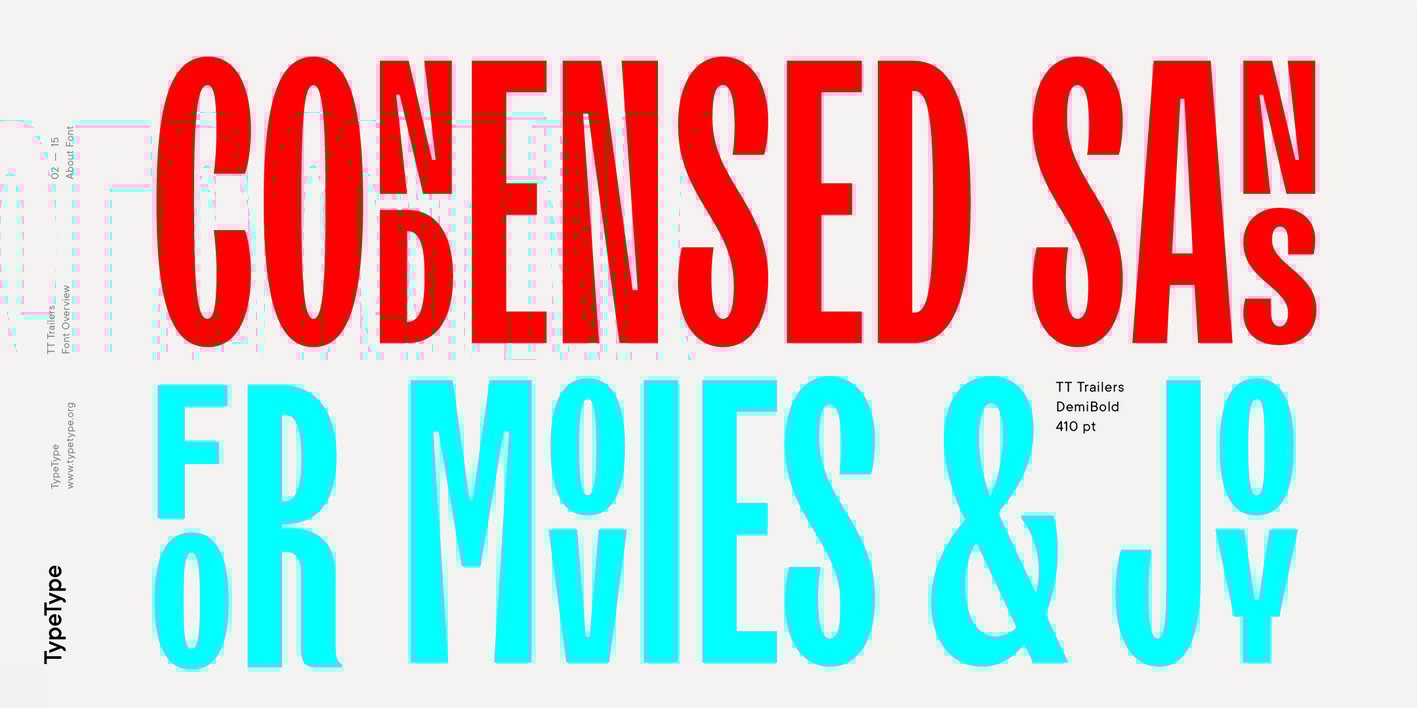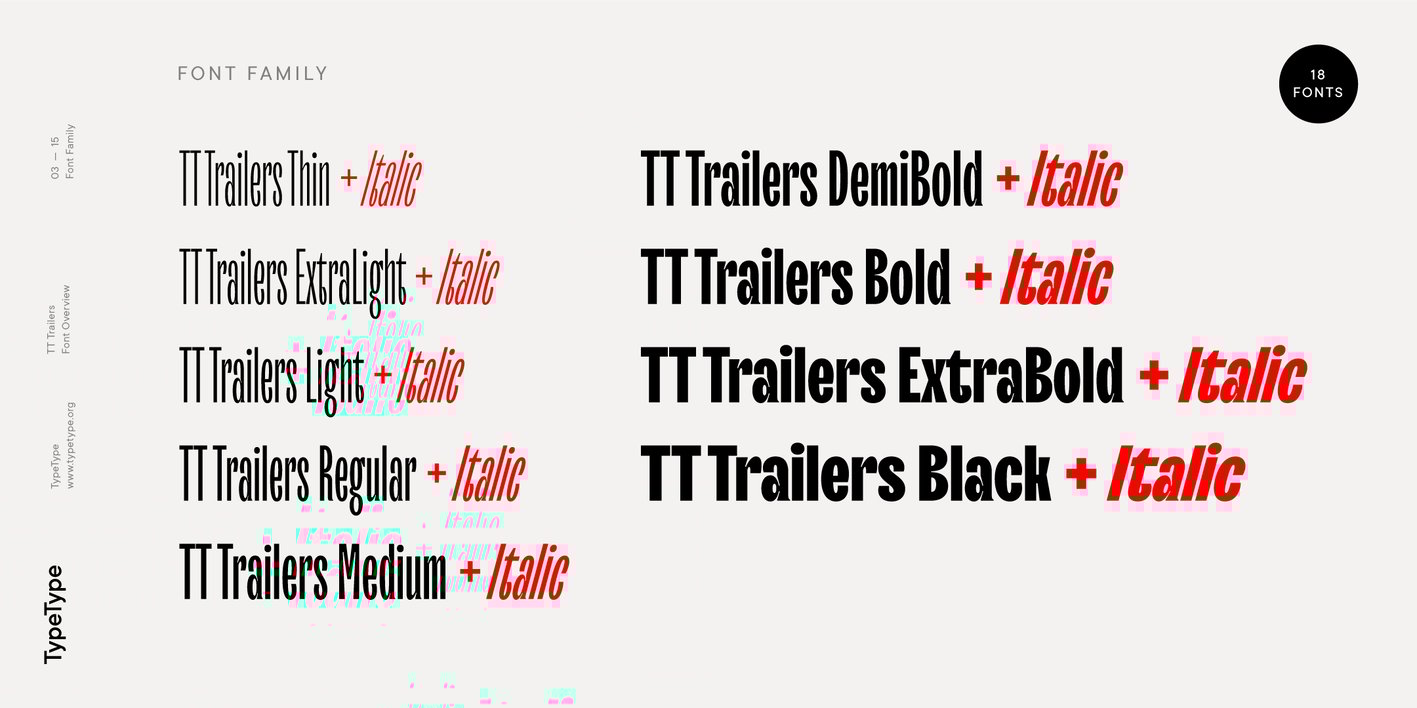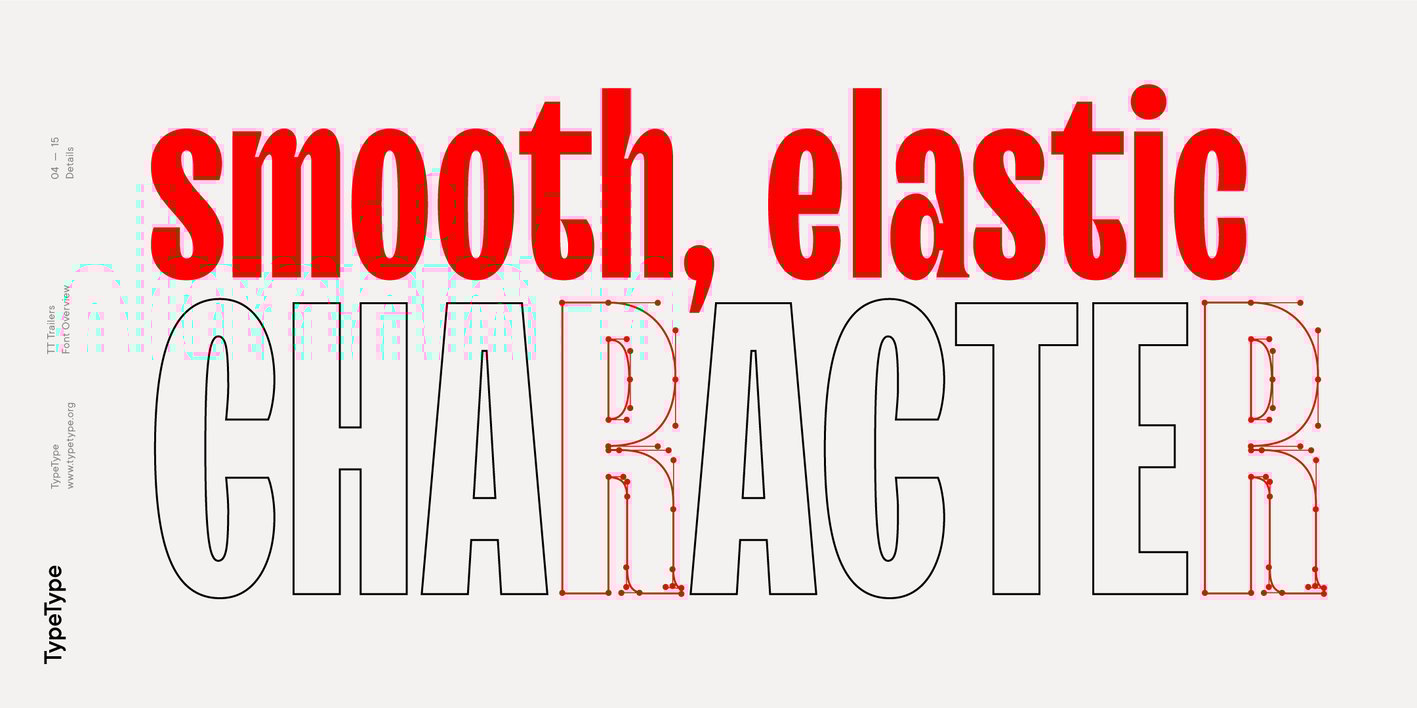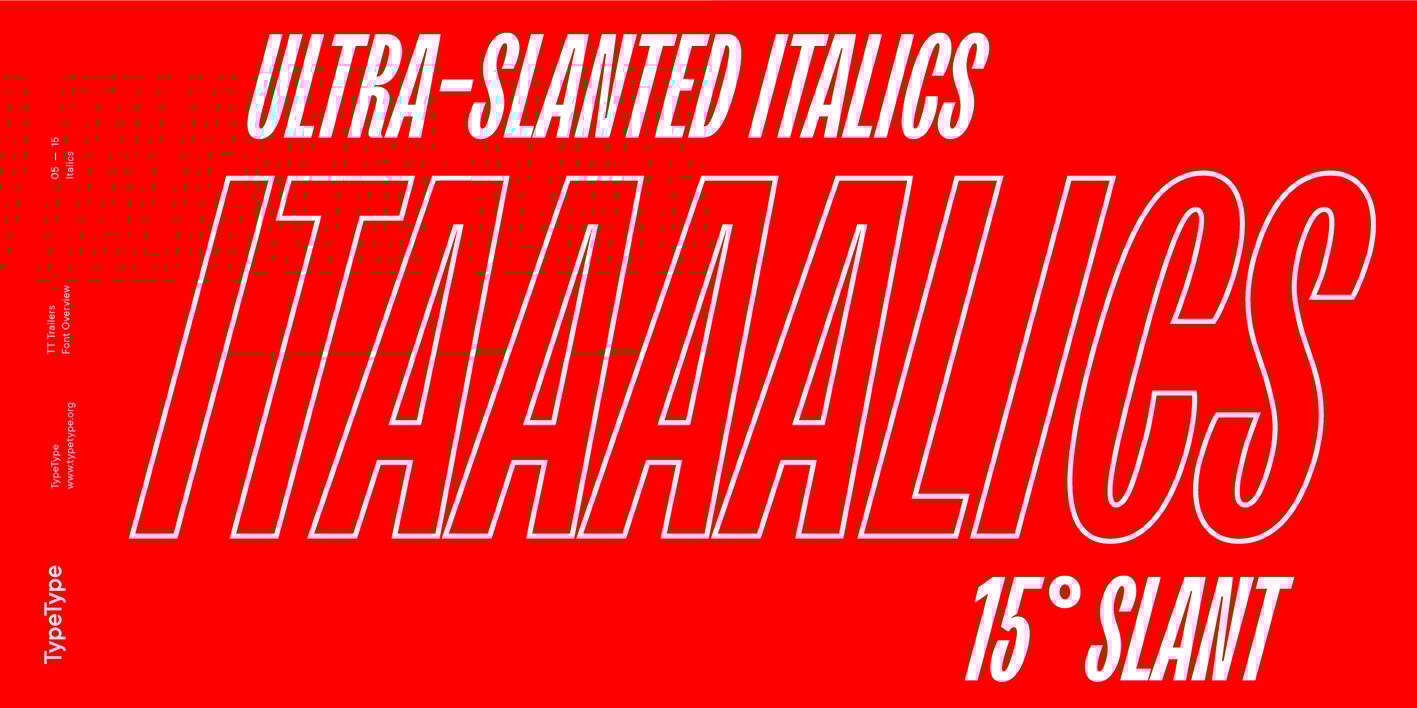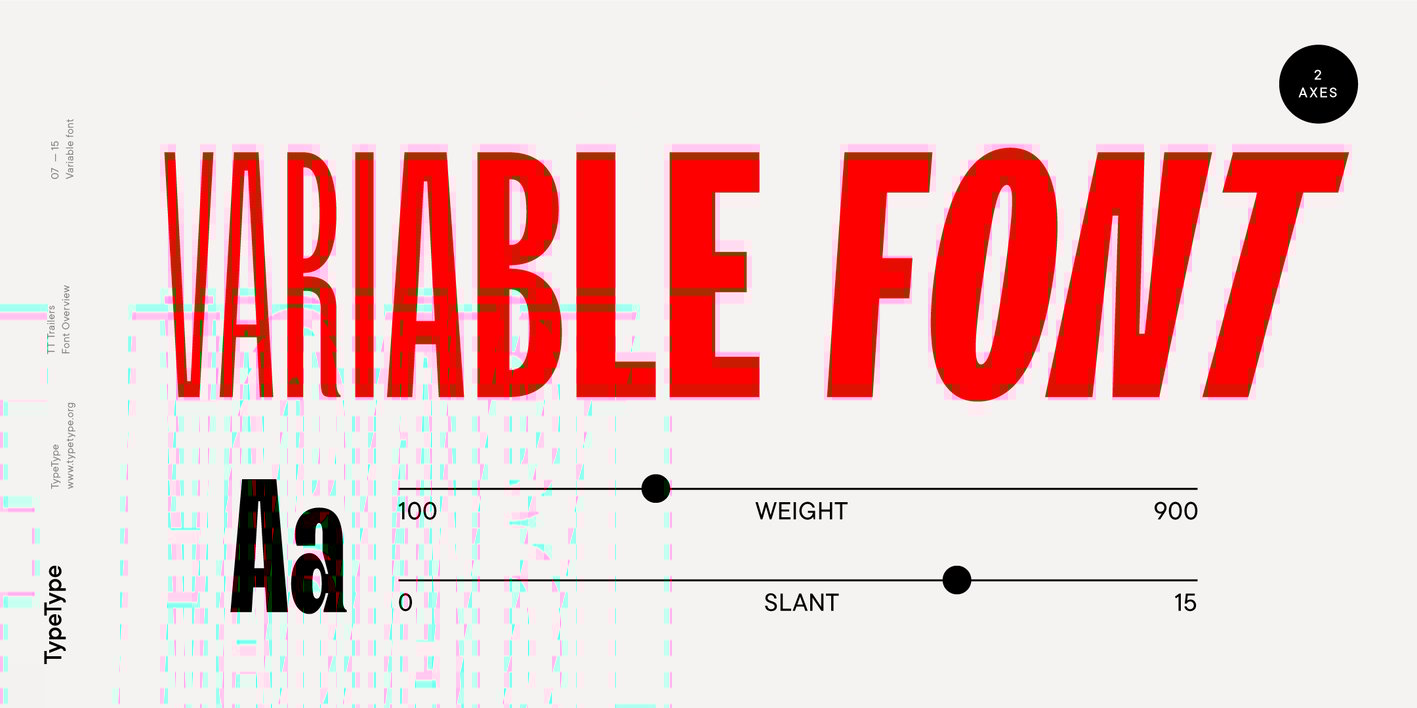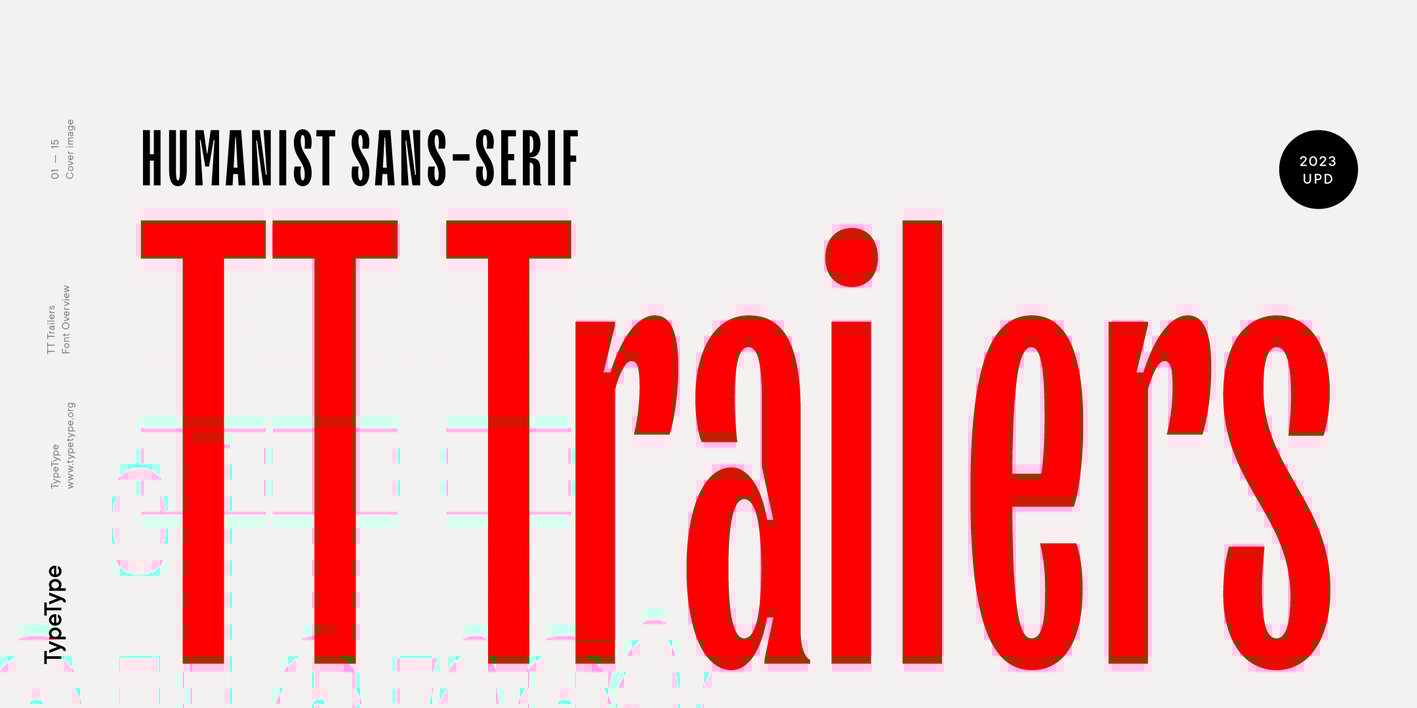
TT Trailers Font
The first version of TT Trailers was conceived as a font suitable for the film industry. The font harmoniously looks in posters, it is ideally suited for setting titles. However, the font has gained wide popularity among designers, and now you can find TT Trailers on the covers of magazines, on restaurant signs and on the main pages of websites.